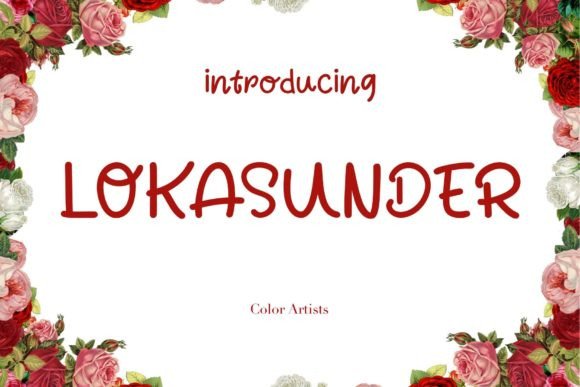
Embark on a typographic voyage with Lokasunder, the font that captivates and enchants. Its meticulously crafted script dances across your designs, leaving a trail of elegance and distinction. Lokasunder is not just a font, it's an artistic expression that breathes life into your creative endeavors.
With its striking and bold strokes, Lokasunder commands attention, making your logos, headlines, and titles leap off the page. It's a font that refuses to blend in; it was born to stand out. Experience the joy of crafting logos that exude power and personality, headlines that shout confidence, and titles that spark intrigue.
Lokasunder's versatility transcends boundaries, effortlessly adapting to print and digital realms. Whether it's adorning a business card or gracing the pages of a magazine, Lokasunder leaves an indelible mark. Its digital prowess shines through on websites, social media posts, and online ads, captivating audiences with its magnetic presence.
This font is a symphony of elegance and modernity, seamlessly blending timeless aesthetics with contemporary flair. It's a font that speaks to the heart of discerning designers, those who appreciate the finer details and seek fonts that elevate their work. Lokasunder is the perfect choice for adding a touch of sophistication to any project, whether it's a personal or professional endeavor.
Lokasunder beckons you to unleash your creativity, to let your imagination run wild. It's a font that invites you to explore new horizons, to push boundaries, and to create designs that leave a lasting impression. Join the ranks of those who appreciate the art of typography, those who recognize the power of a well-chosen font.
Lokasunder awaits your touch, ready to transform your designs into masterpieces. Let your fingers dance across the keyboard, guided by the enchanting rhythm of Lokasunder. Experience the exhilaration of creating something extraordinary, something that will captivate and inspire.